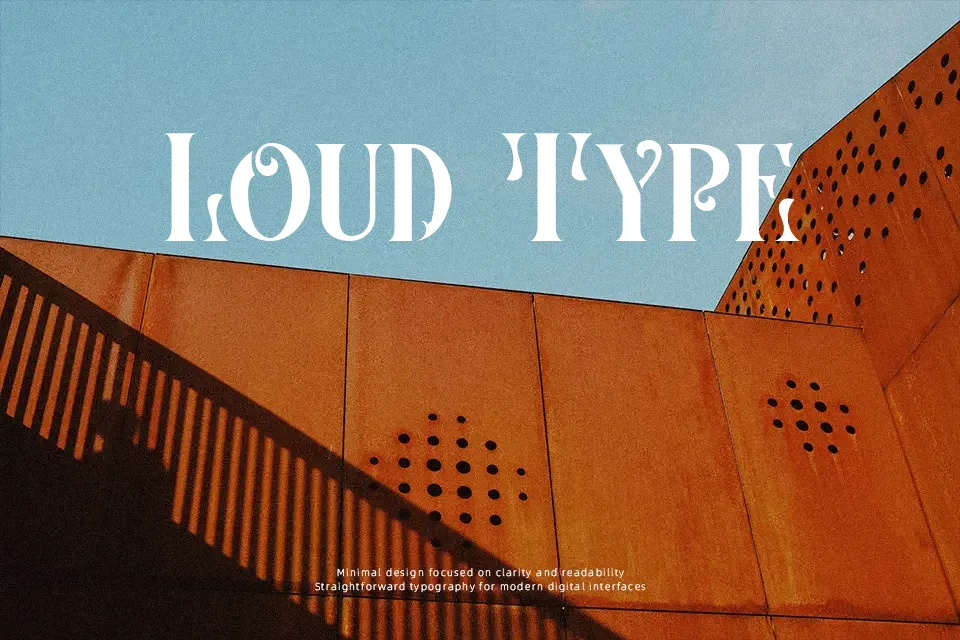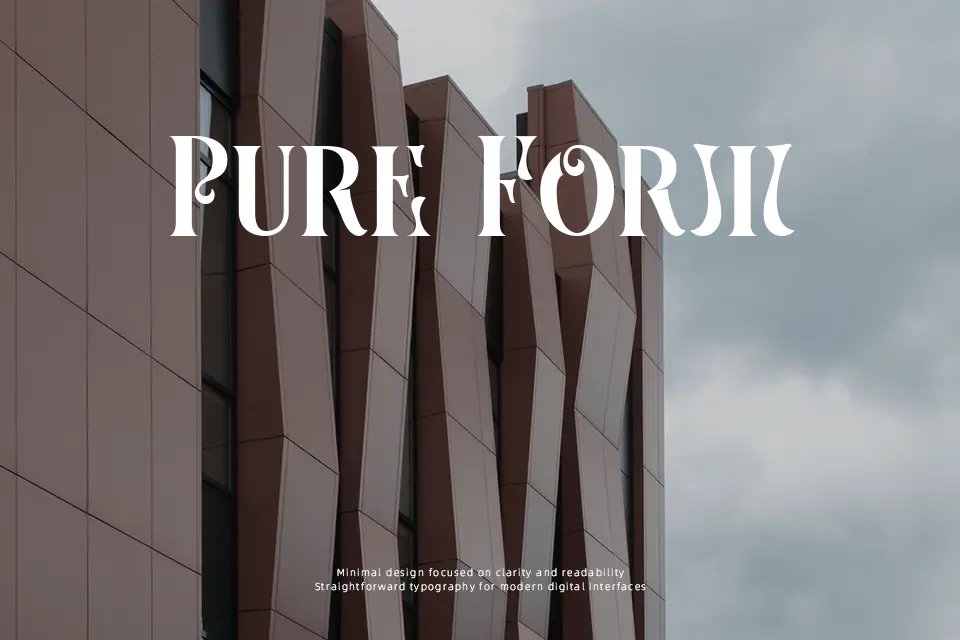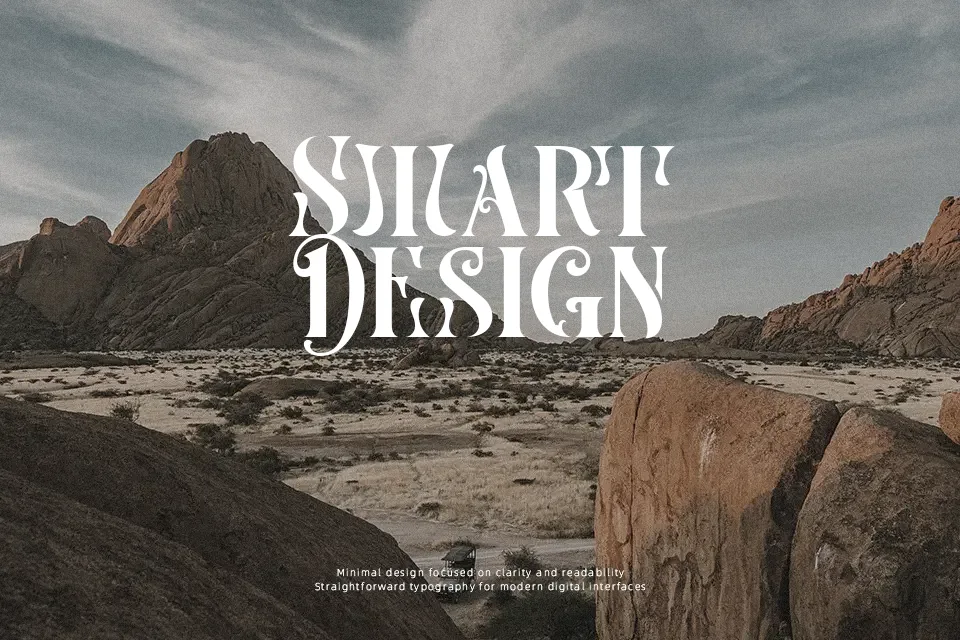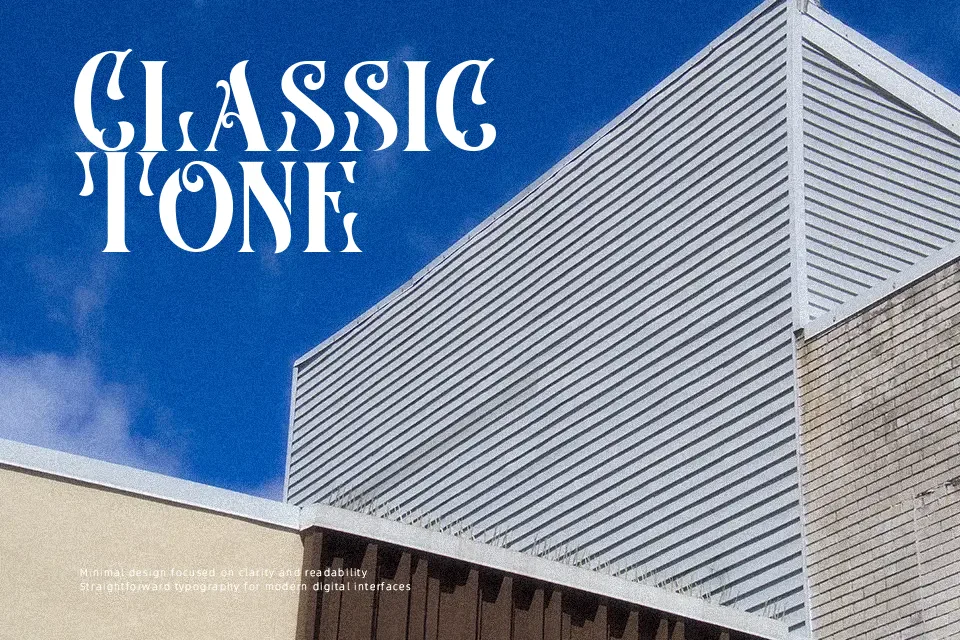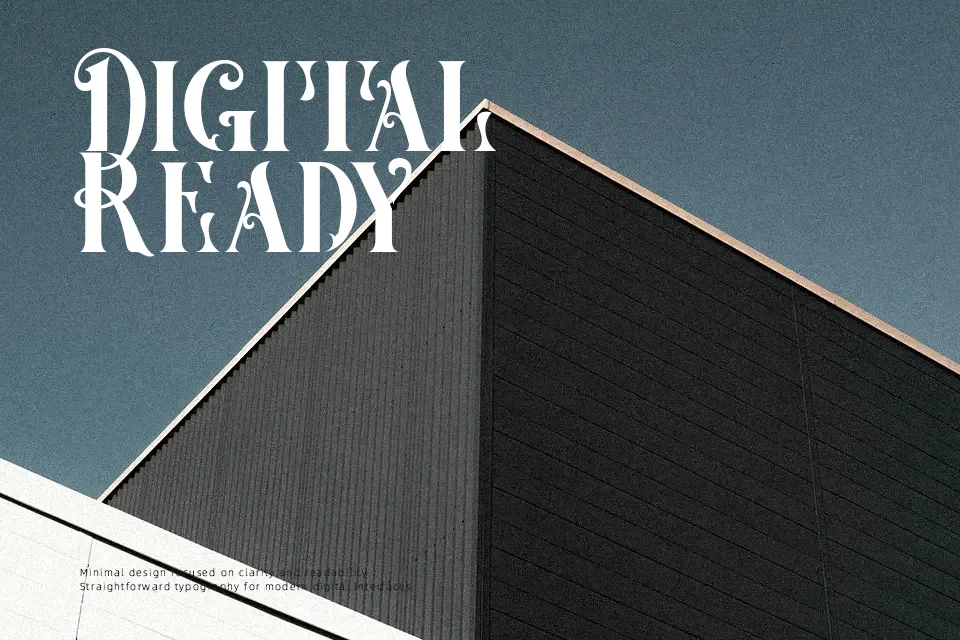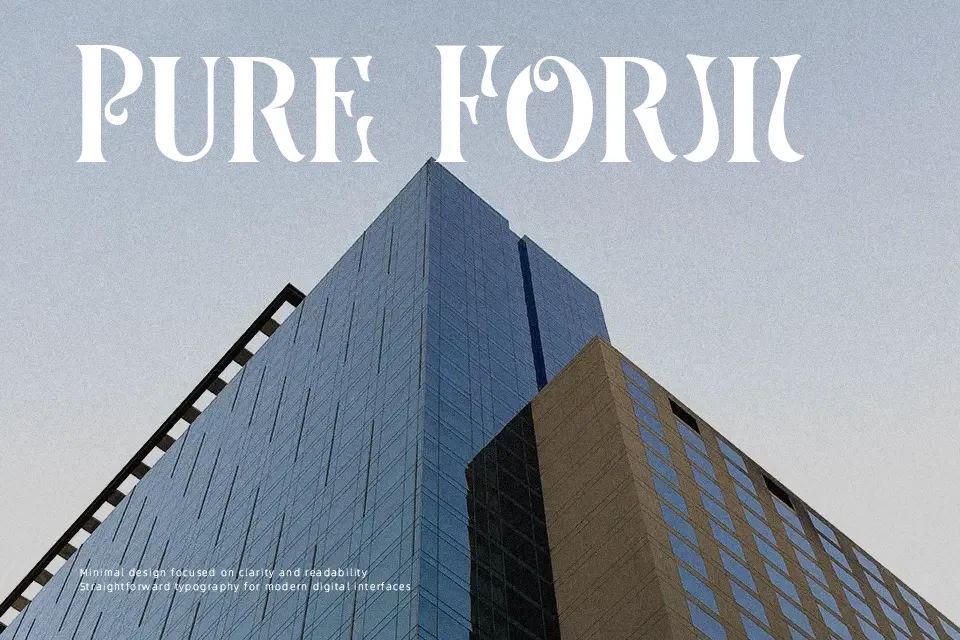
Albrega Changes Font
Albrega Changes carries the weight of vintage theatricality in every letterform — high-contrast serifs, pronounced stroke variation, and a condensed stance that feels both authoritative and ornamental. The all-caps construction with mismatched uppercase and lowercase heights creates a stencil-meets-Victorian aesthetic that few display fonts pull off convincingly. Its extensive ligature set (ab, ft, ka, va, and dozens more) rewards designers who take time to finesse their typography. Works well on poster headers, logo lockups, packaging labels, and fashion editorial titles where bold personality is the brief. That said, its decorative density makes it unsuitable for body copy or dense informational layouts — readability degrades quickly at small sizes. If you need a workhorse font for long text, look elsewhere; but for a single striking headline, it earns its place.
Best For:- Vintage-themed poster headers and event flyers
– Fashion brand logos and packaging labels
– Music album cover titles
– Editorial pull-quotes and magazine spreads
Not Ideal For:- Body text or long-form reading
– Corporate reports or formal documents
– Small-size UI labels or captions
– Digital interfaces requiring high legibility at varied sizes
Perfect for branding, editorial, and fashion, with a bold and decorative style.